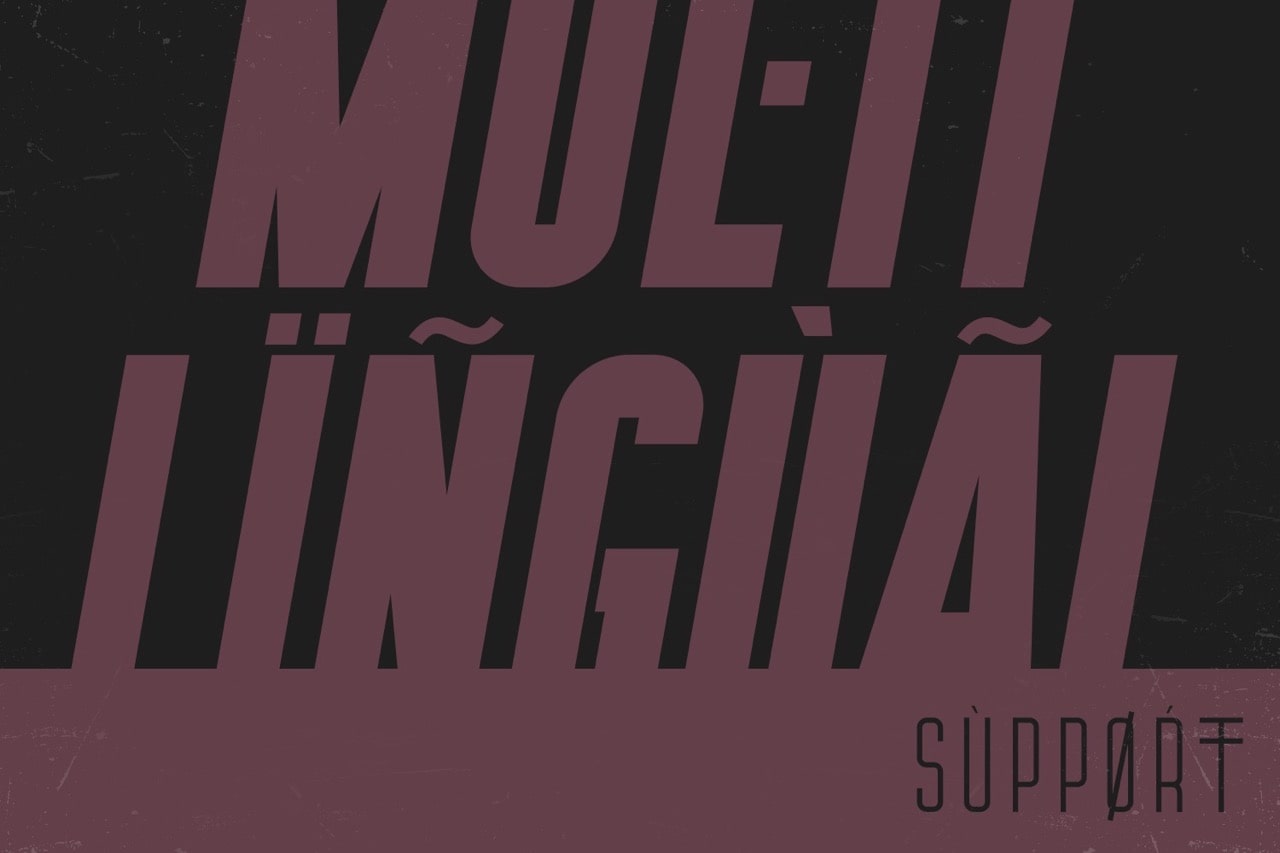
Le Blanc is a strong and condensed sans serif font family with a retro vibe. Combining vintage and minimalist elements resulted in an elegant design. It offers you a lot of options when it comes to choosing the right typeface color for your project.
- 5 Weights
- 2 Styles (Regular and Italic)
- Stylistic Ligatures and Alternate Glyphs
LeBlanc Condensed Sans